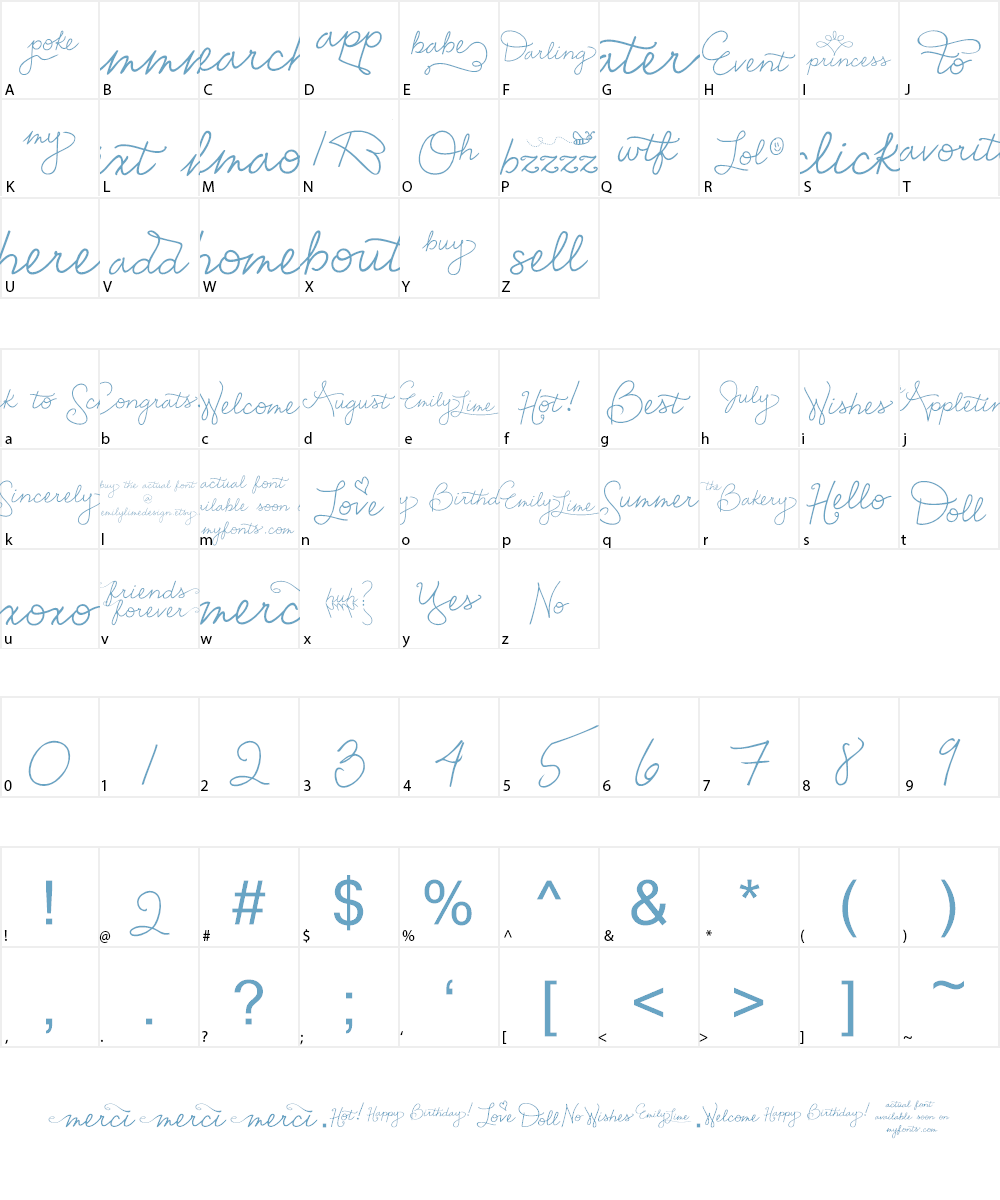
This fun collection of words was created using Emily Lime Pro - visit me on www.emilylimedesign.etsy.com if you are interested in the actual fonts used to create these words.